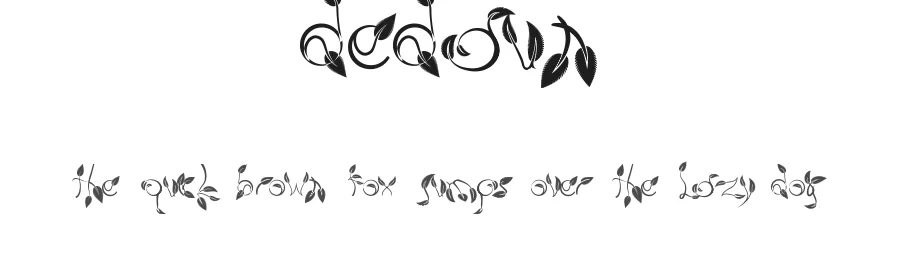
About Pedersen Font
Pedersen is a decorative font designed by Boksen. It includes 143 glyphs, a medium weight, TTF (TrueType) format, and 133 languages. Pedersen is free to download; check the license details on this page before commercial use. Decorative fonts like Pedersen work best for logos, posters, packaging, and standout headlines.
Pedersen Font is a decorative font that shines as a display or heading face. Pair it with a clean sans-serif or serif font for body text β the contrast creates a clear hierarchy while the two styles stay balanced and easy to read.
Pedersen Font
by Boksen